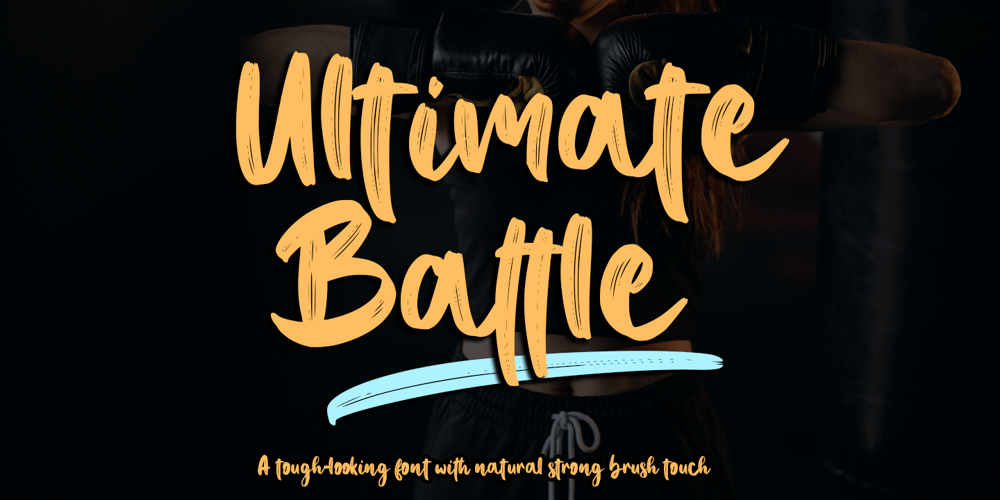
Ultimate Battle Font Family was designed by Thomas Aradea and published by Letterara. Ultimate Battle contains 2 styles and family package options. Ultimate Battle is a stylish and incredibly natural elegant handwritten font. This font was particularly crafted for those who need a strong and looks like a natural brush to their designs. Add it confidently to your projects, and you will love the results. This font is PUA encoded which means you can access all of the glyphs and swashes with ease!